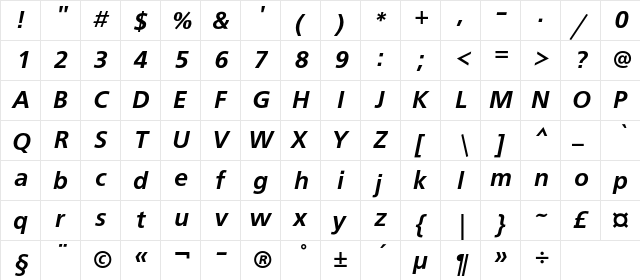
FreeSetDemiC Italic
Design Context for FreeSetDemiC Typeface
FreeSetDemiC is a composed and adaptable typeface that performs quietly and consistently across a wide range of design contexts. The slanted form adds forward momentum and visual energy.
Pro Tip: Try FreeSetDemiC for annotation and caption copy alongside an upright companion — the contrast in angle creates a dynamic but ordered typographic system.